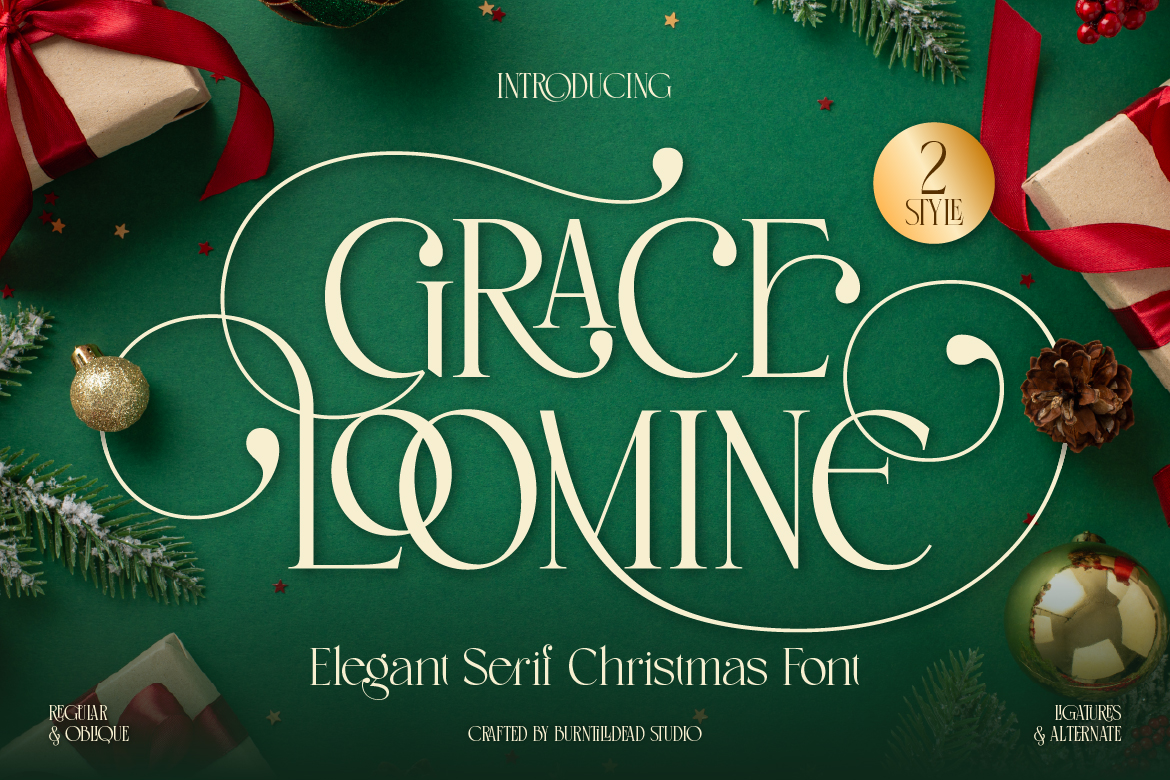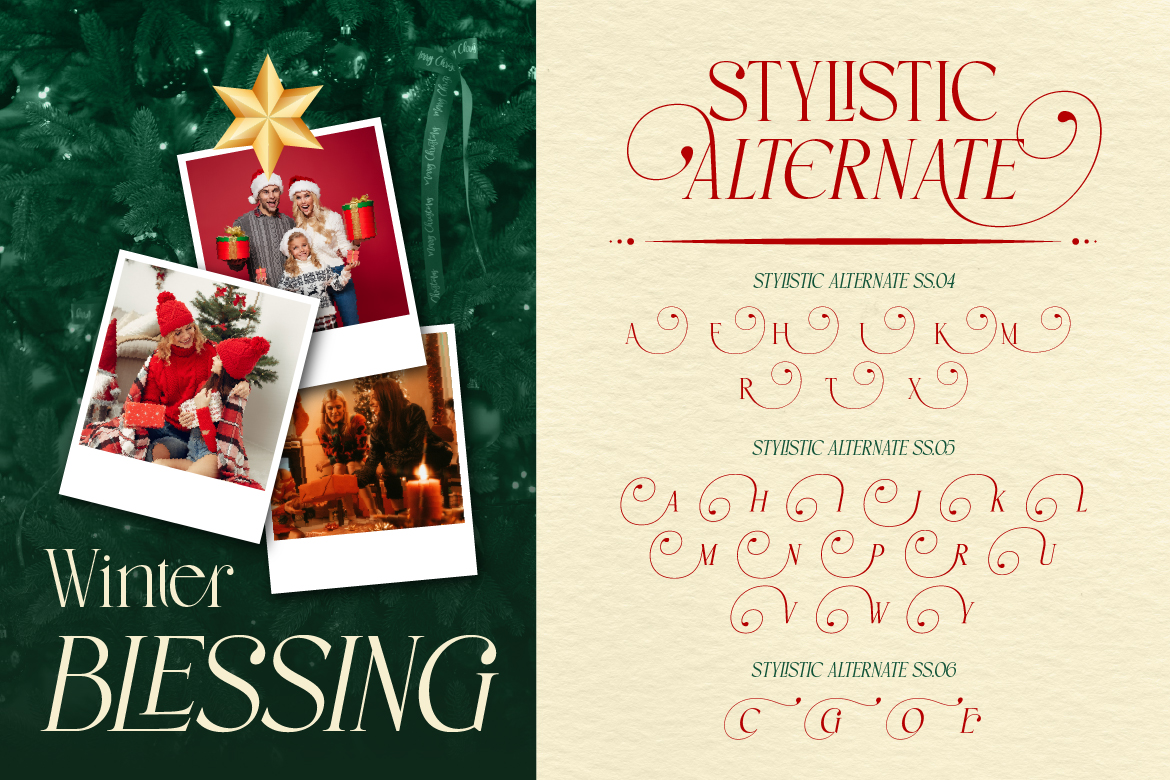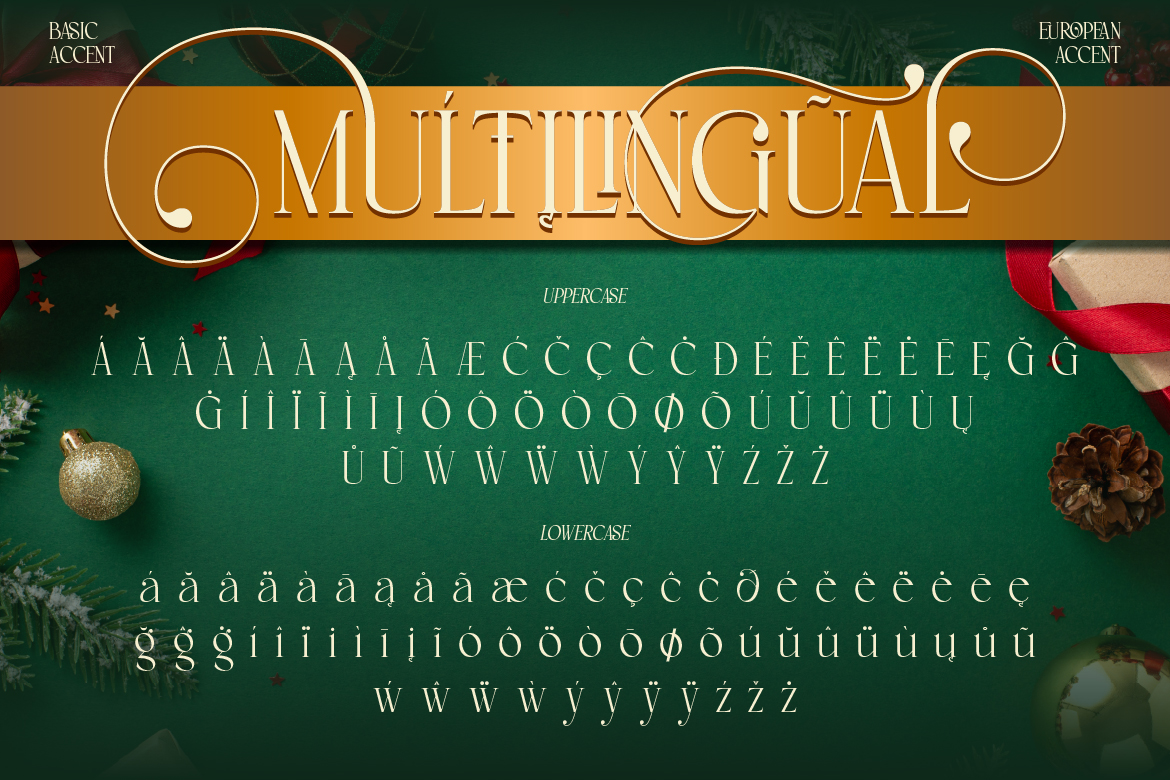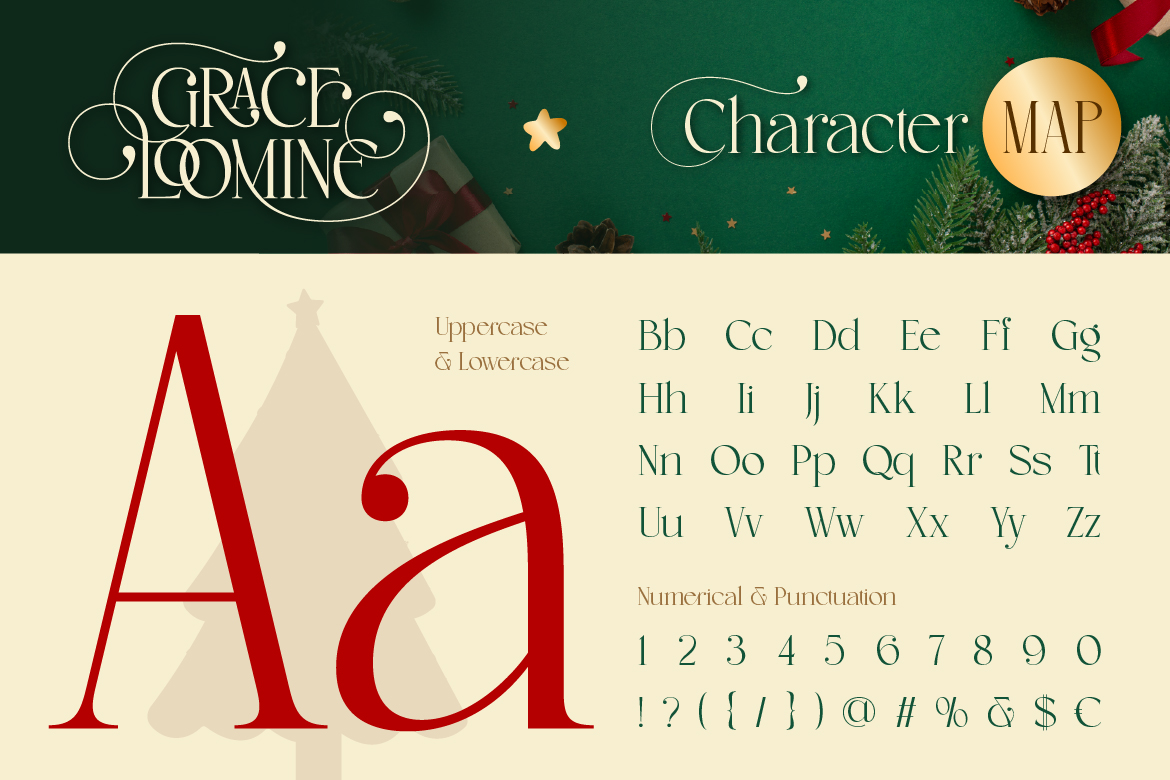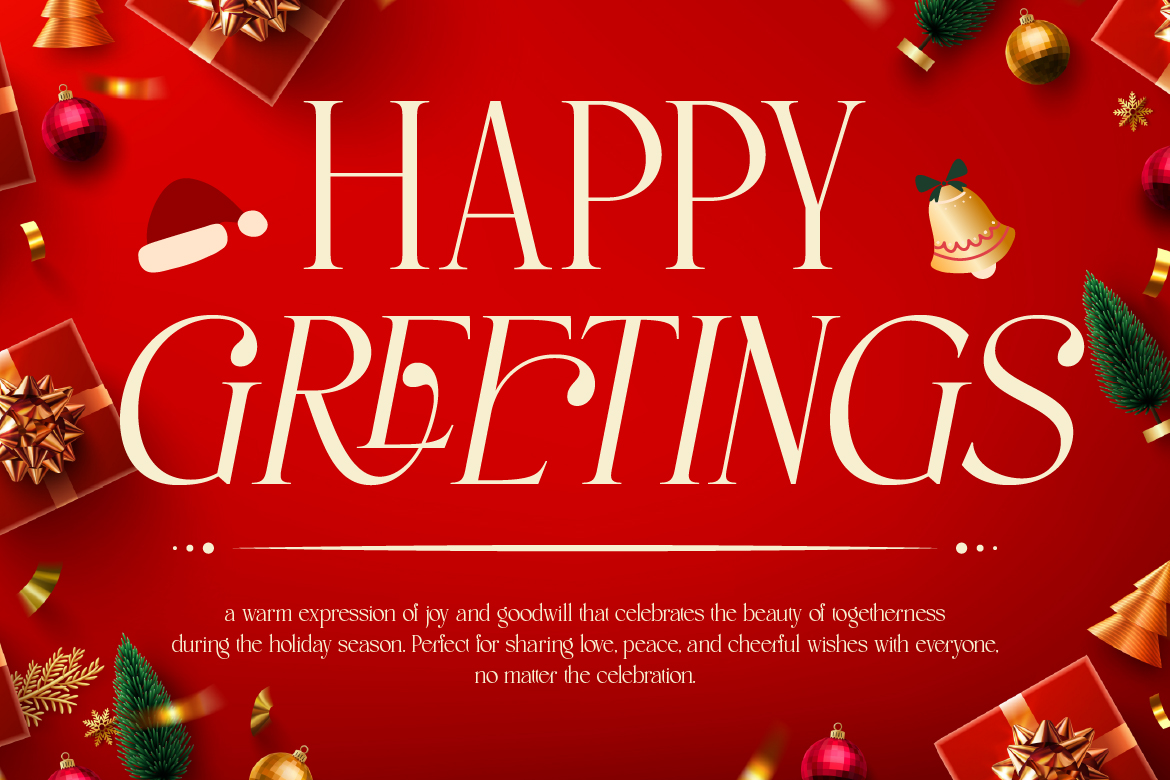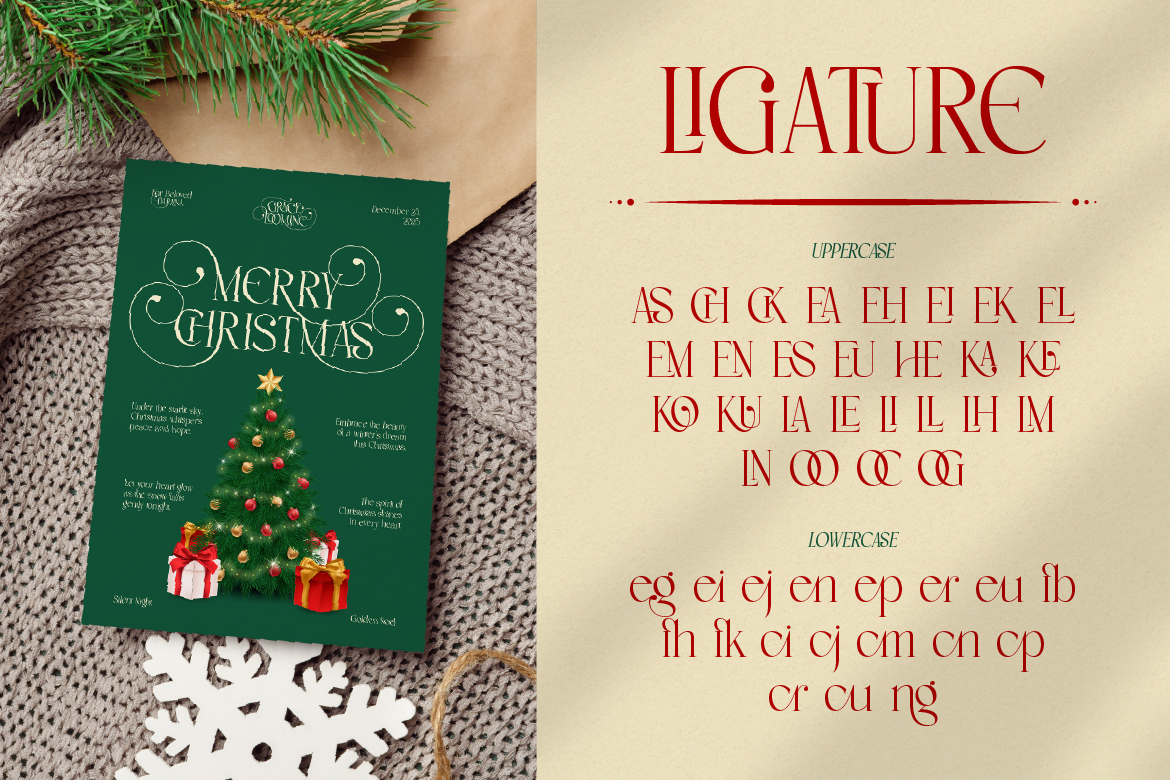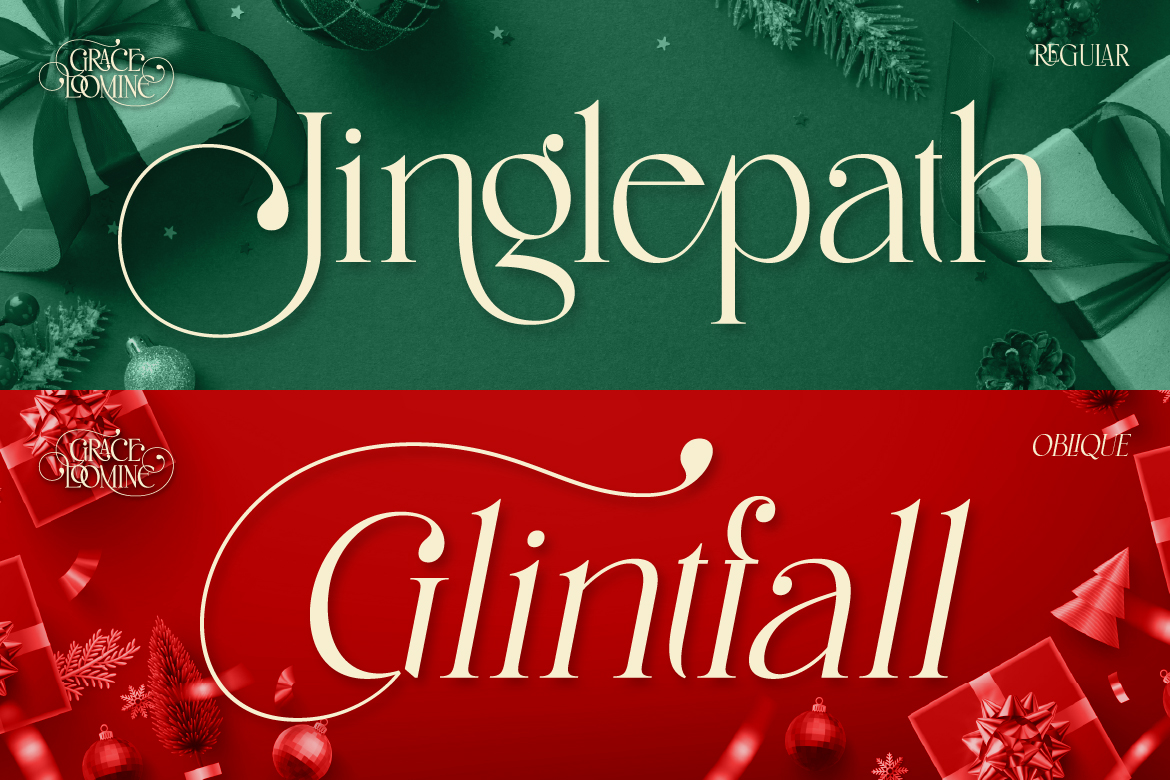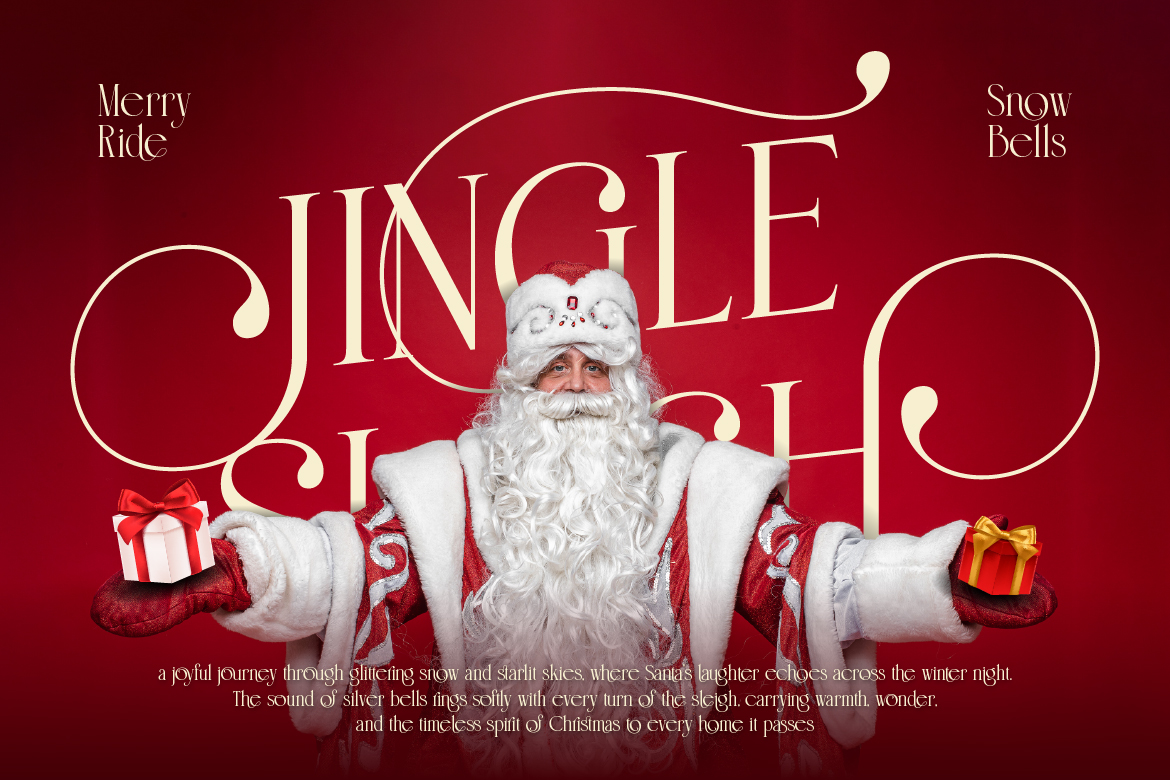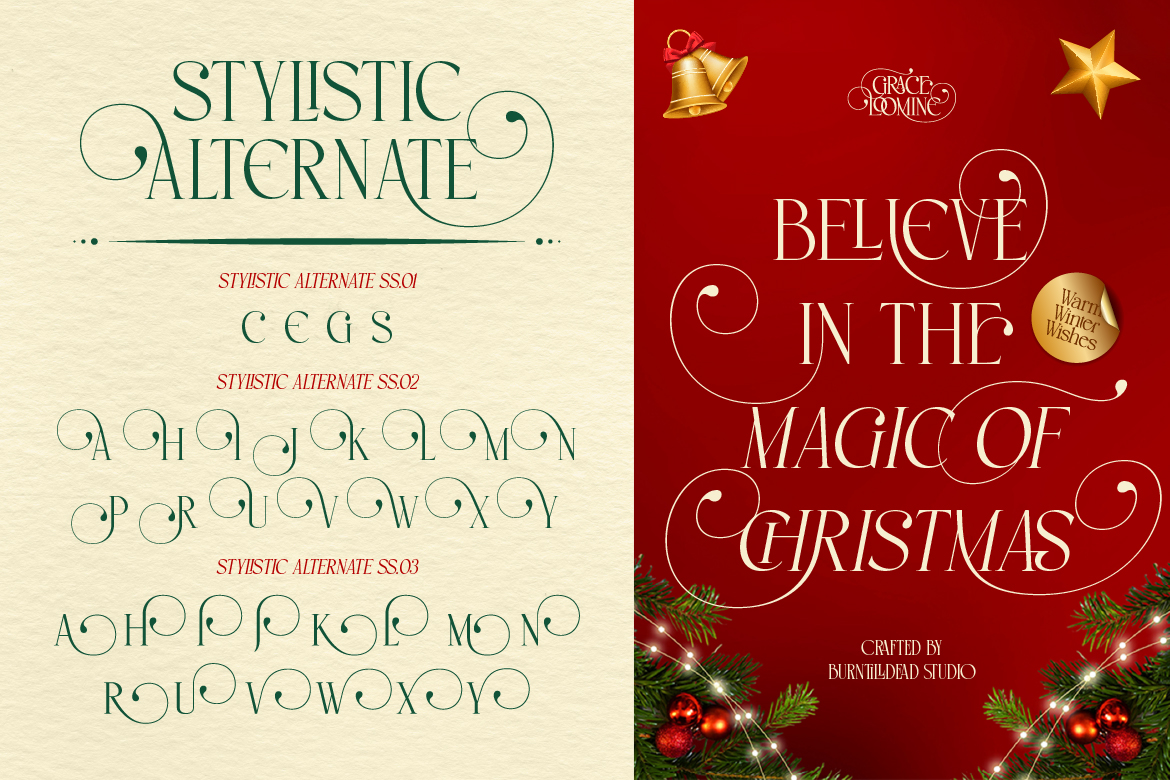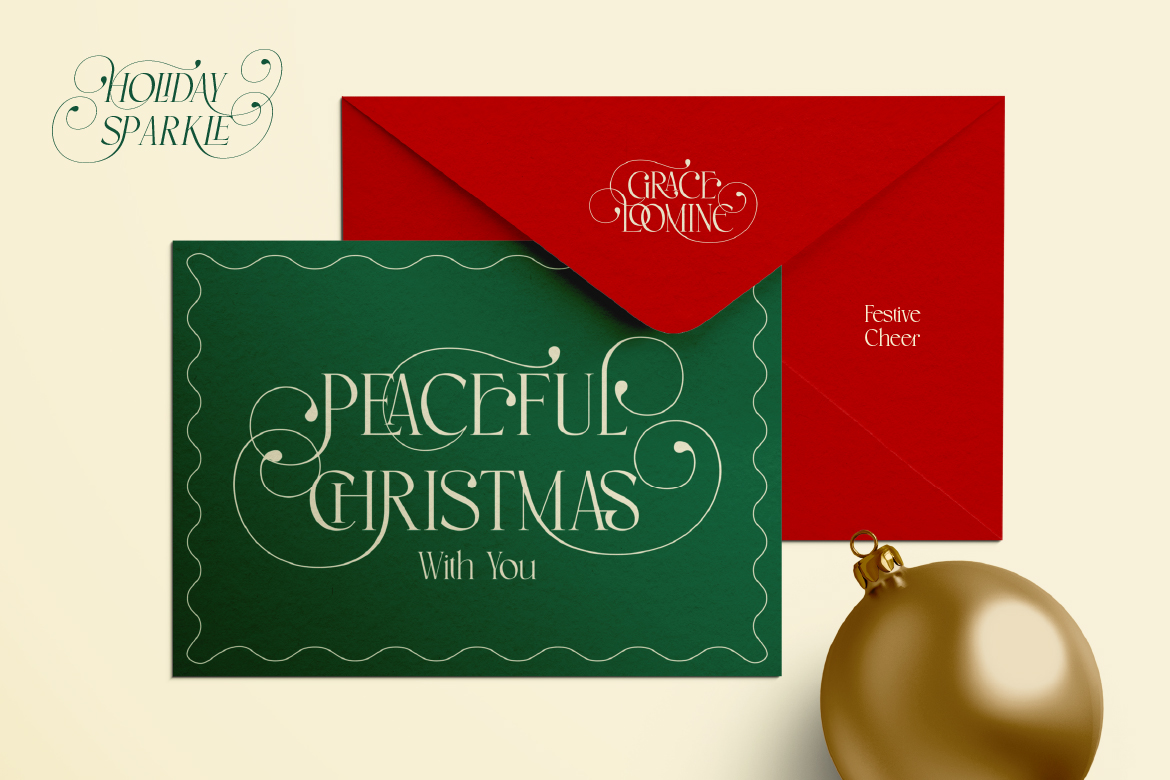
- Classic - Elegant
- Grace Loomine
Introducing Grace Loomine, an elegant serif font that perfectly captures the timeless beauty of Christmas. Designed with graceful curves and luxurious swashes, this typeface brings a festive sophistication to every design it touches.
Grace Loomine comes in two refined styles — Regular and Oblique — both exuding a sense of warmth, magic, and classic charm. Each letter dances with holiday spirit, featuring beautiful ligatures and stylistic alternates that let you craft stunning greetings, invitations, packaging, or editorial layouts with a touch of grandeur.
Whether you’re designing a “Merry Christmas” card, festive signage, or a winter campaign, Grace Loomine transforms words into art. It’s the perfect blend of elegance and celebration, where every curve whispers joy and every detail sparkles like a winter night.
Let your holiday projects shine with the graceful sophistication of Grace Loomine — where typography meets Christmas magic.
- Grace Loomine Character Map